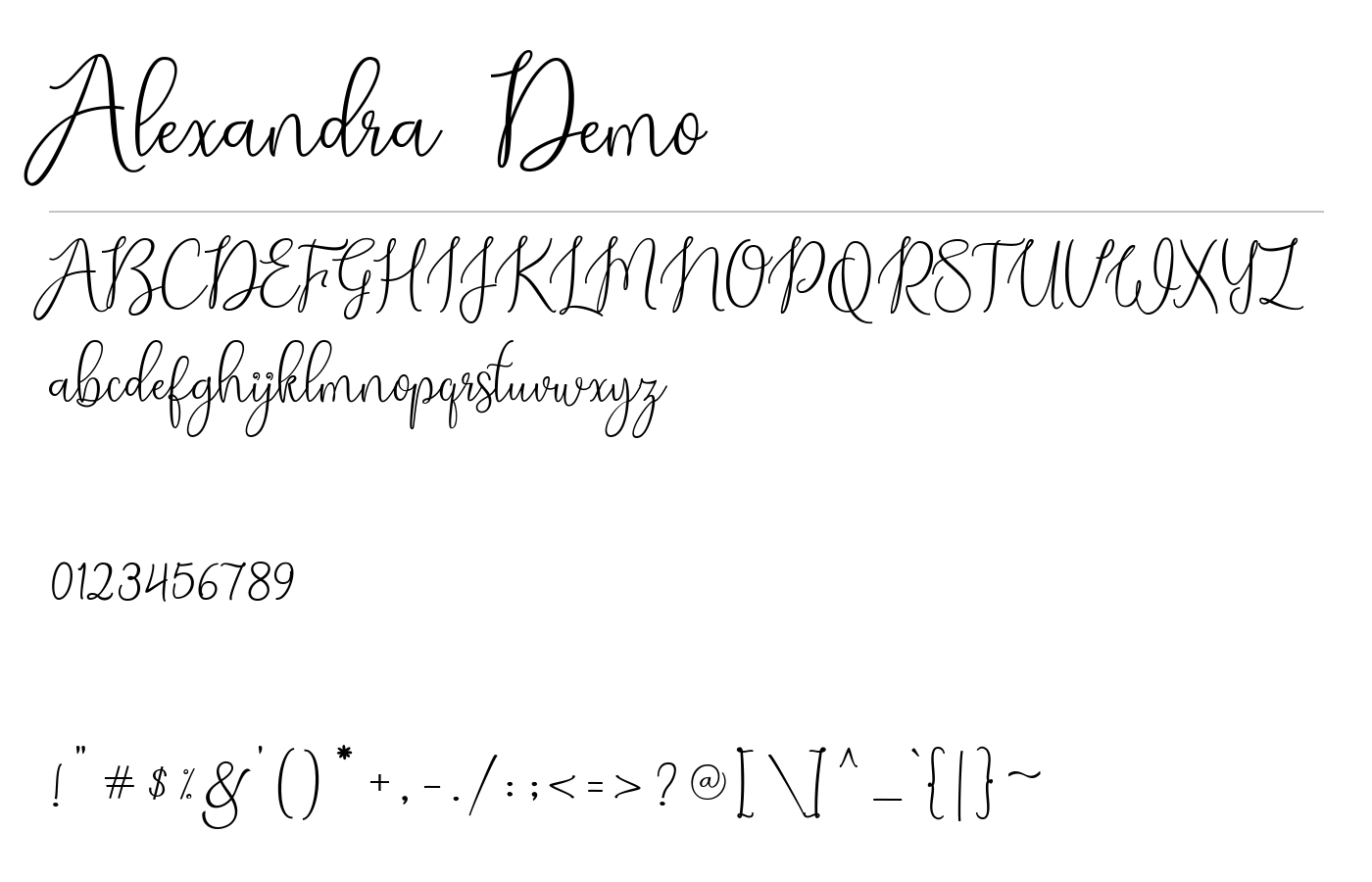
Alexandra Demo is a delicate, handwritten script font with slender strokes and elegant, flowing letterforms that evoke a sense of grace and sophistication. Its tall and airy appearance, paired with subtle variations in line thickness, makes it ideal for invitations, branding, and decorative headlines where a personal and refined touch is desired. This font’s charming style works beautifully for projects seeking a feminine, stylish, and approachable aesthetic.
Alexandra Demo Font
About Alexandra Demo Font